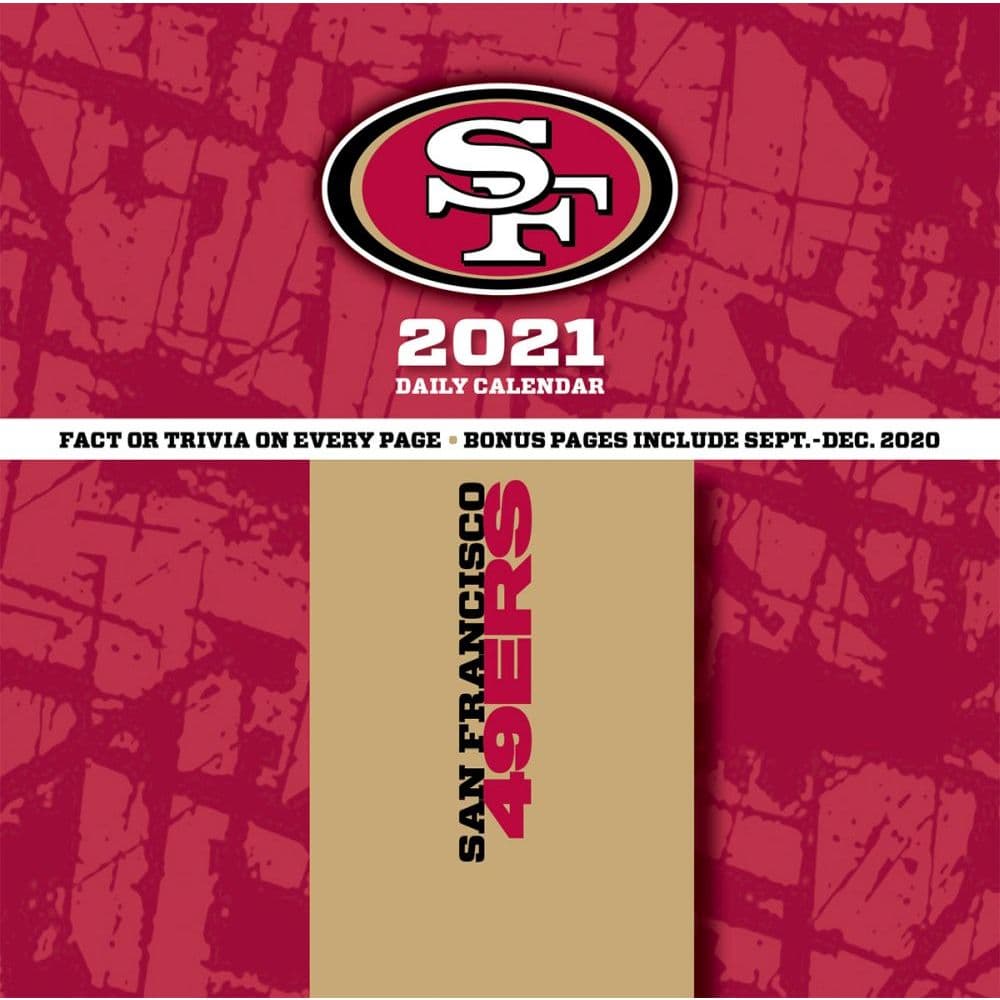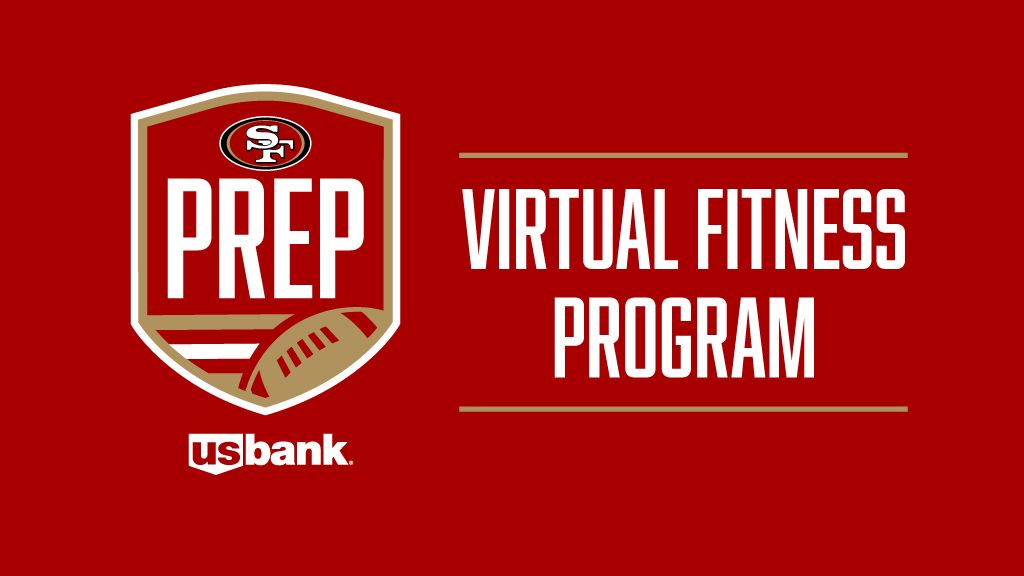
San Francisco 49ers Font
49ers font is fit perfect for special events product packaging wedding designs stationery product designs invitation logos branding social media posts photography and more.
San francisco 49ers font. The faithful font will be used by the marketing team for print collateral and social media. 49ers faithful font faithful is the official brand font of the san francisco 49ers based on the iconic sf monogram introduced in the early 1960s and a continuation of the 49ers logo type introduced in mid to late 1980s. San francisco 49ers home.
Its name is quentin caps font a great retro font. Created a typeface of the alphabet and numerals by using the iconic sf oval logo. So today we wanna bestowing you to a font family that used for its logo.
Faithful font created the faithful font to match the existing san francisco 49ers logos. The 49ers official mascot is sourdough sam. The closest free font you can get is kameron bold font.
Download free fonts for san francisco 49ers logo. San francisco 49ers logo black and white. The shape and typography stayed the same.